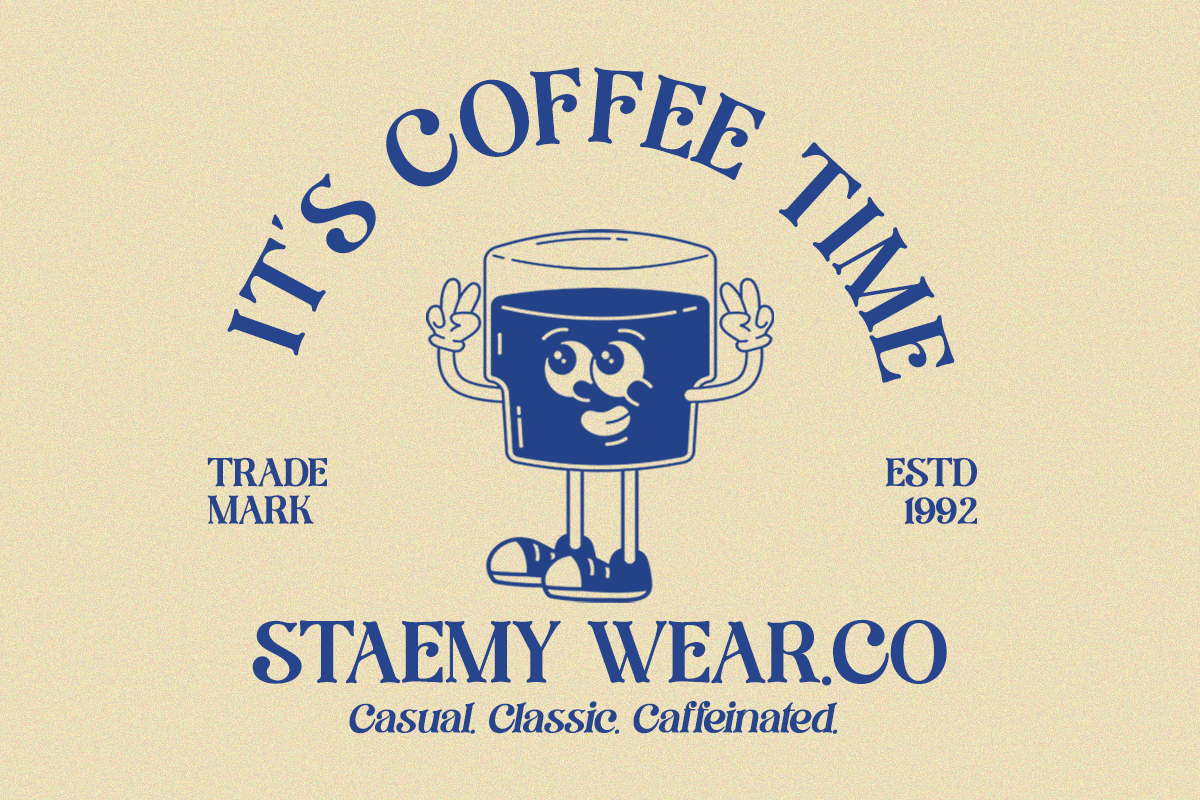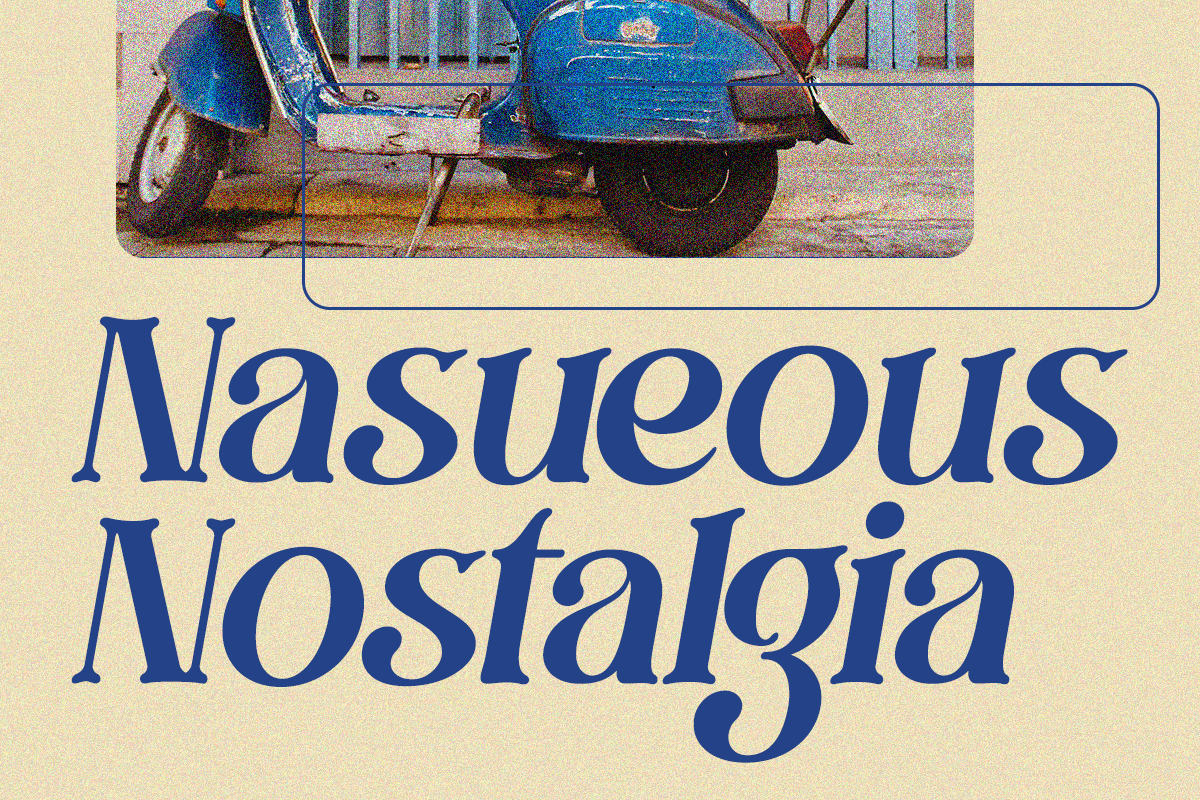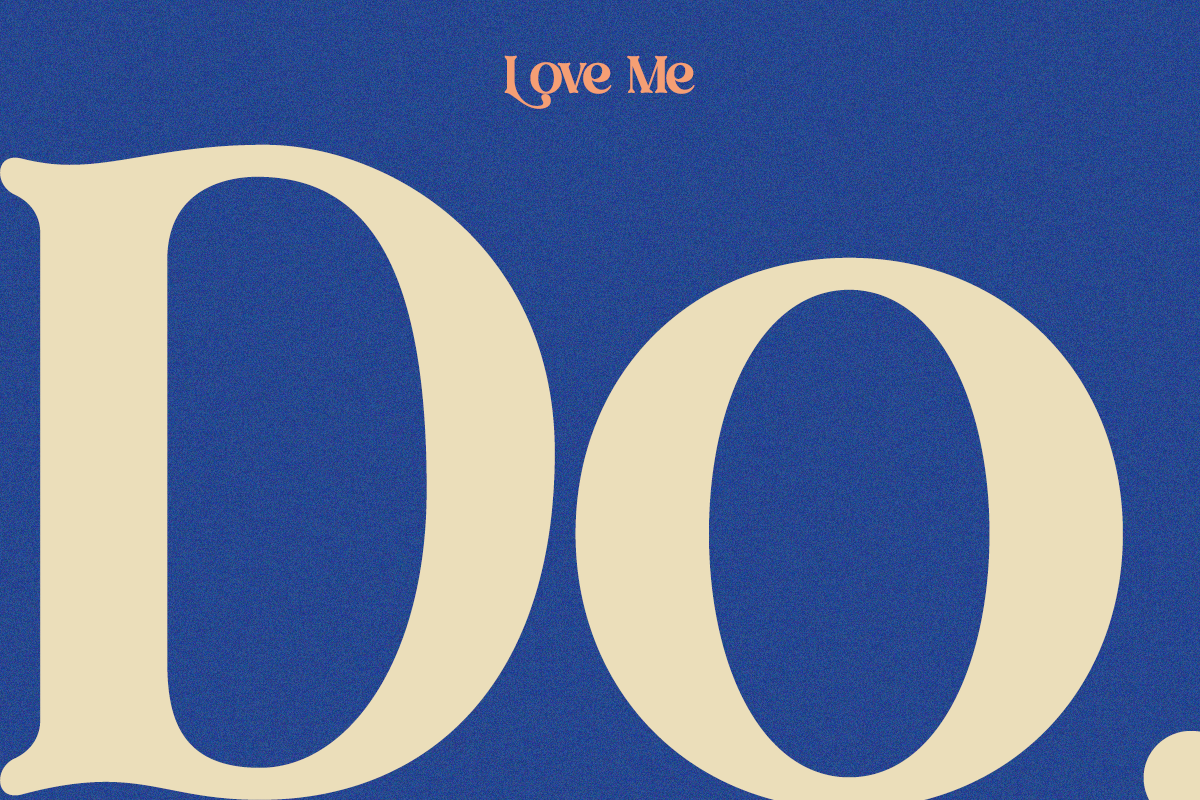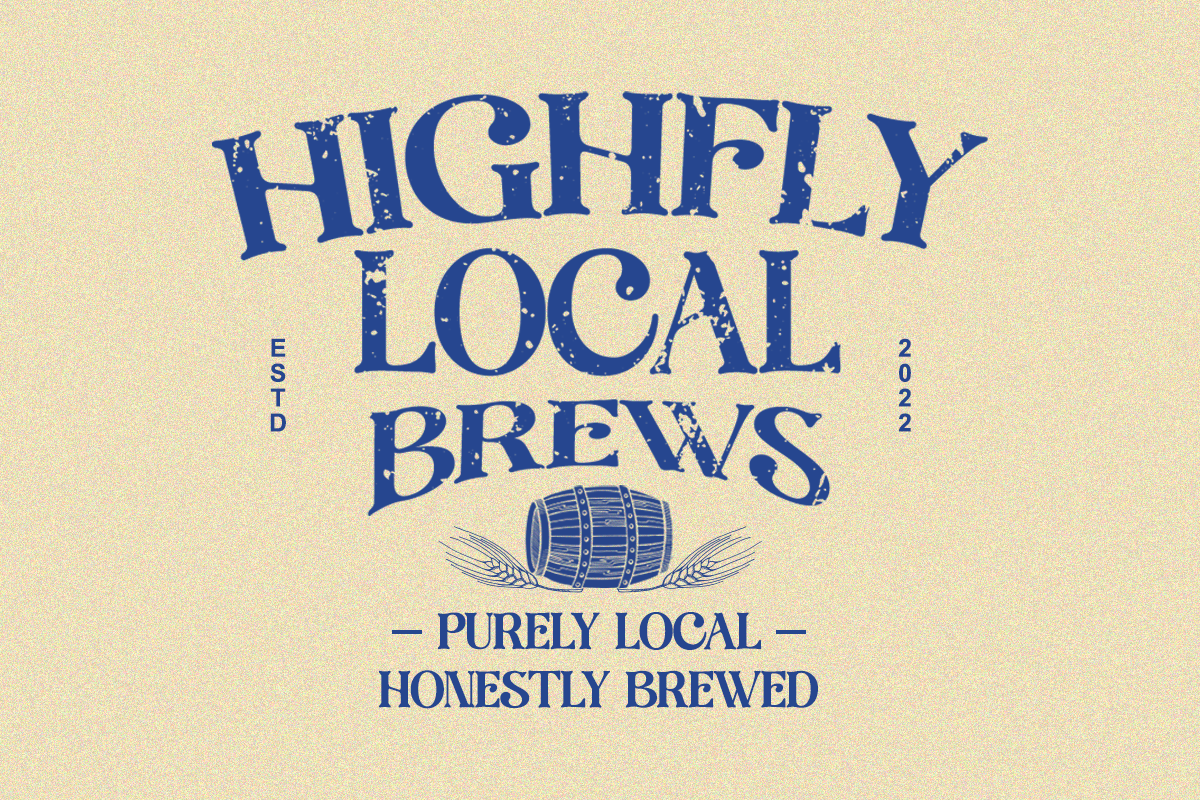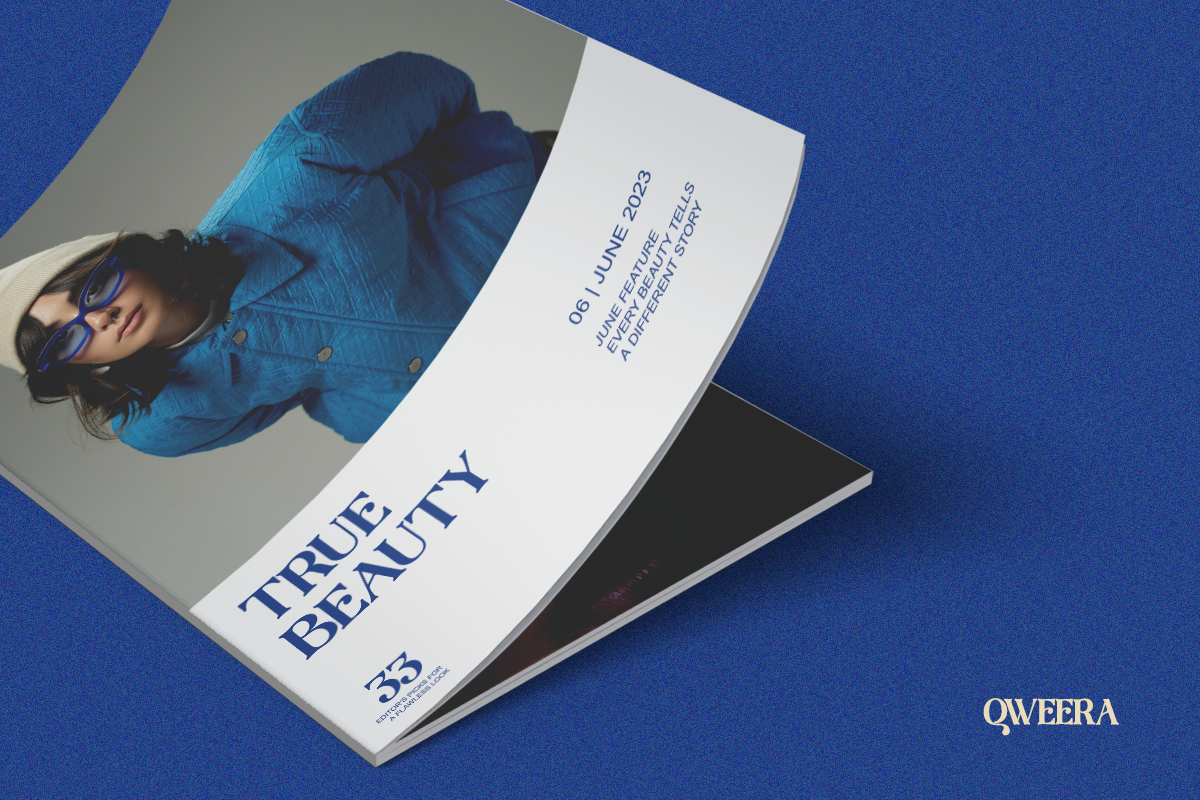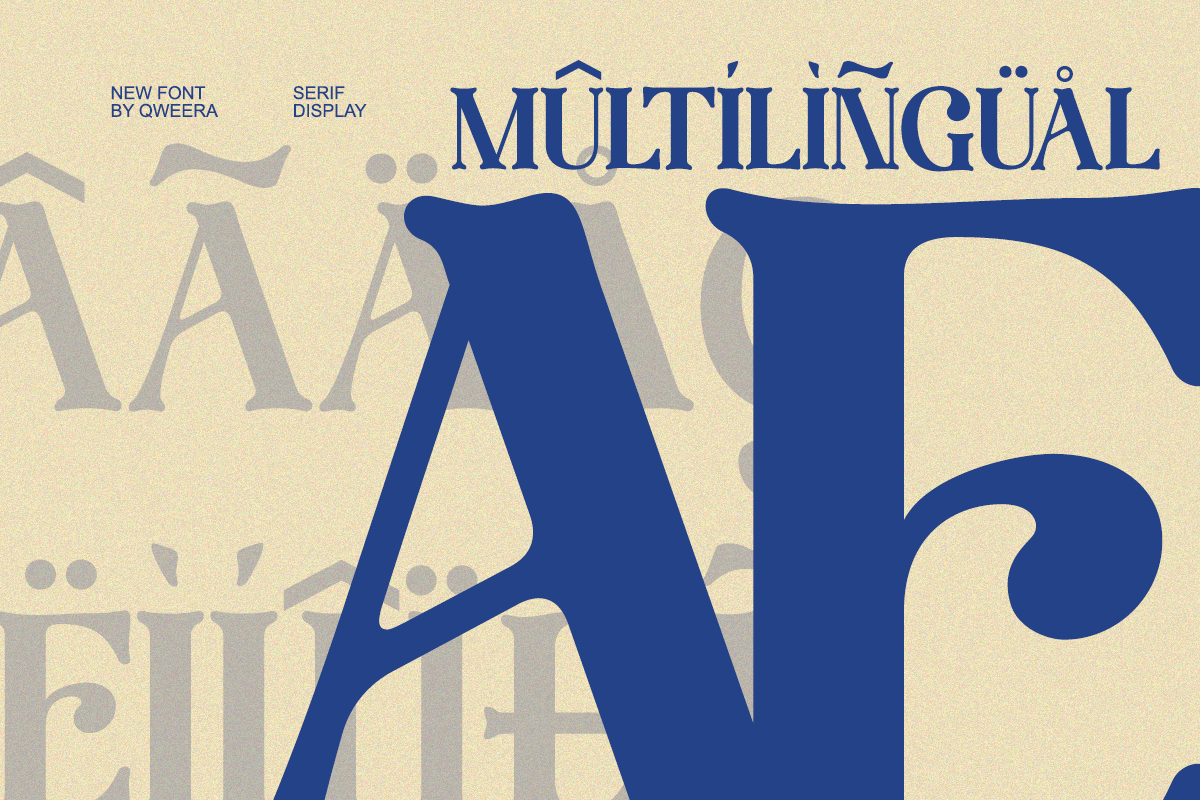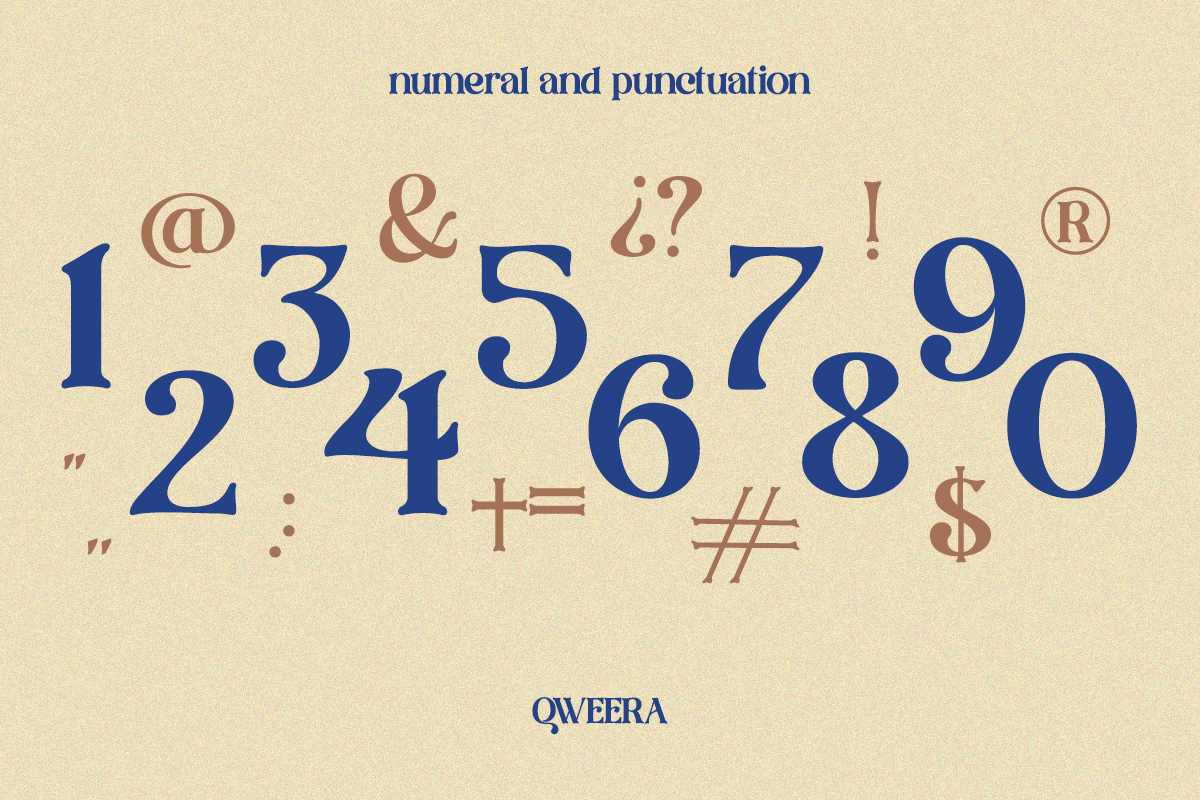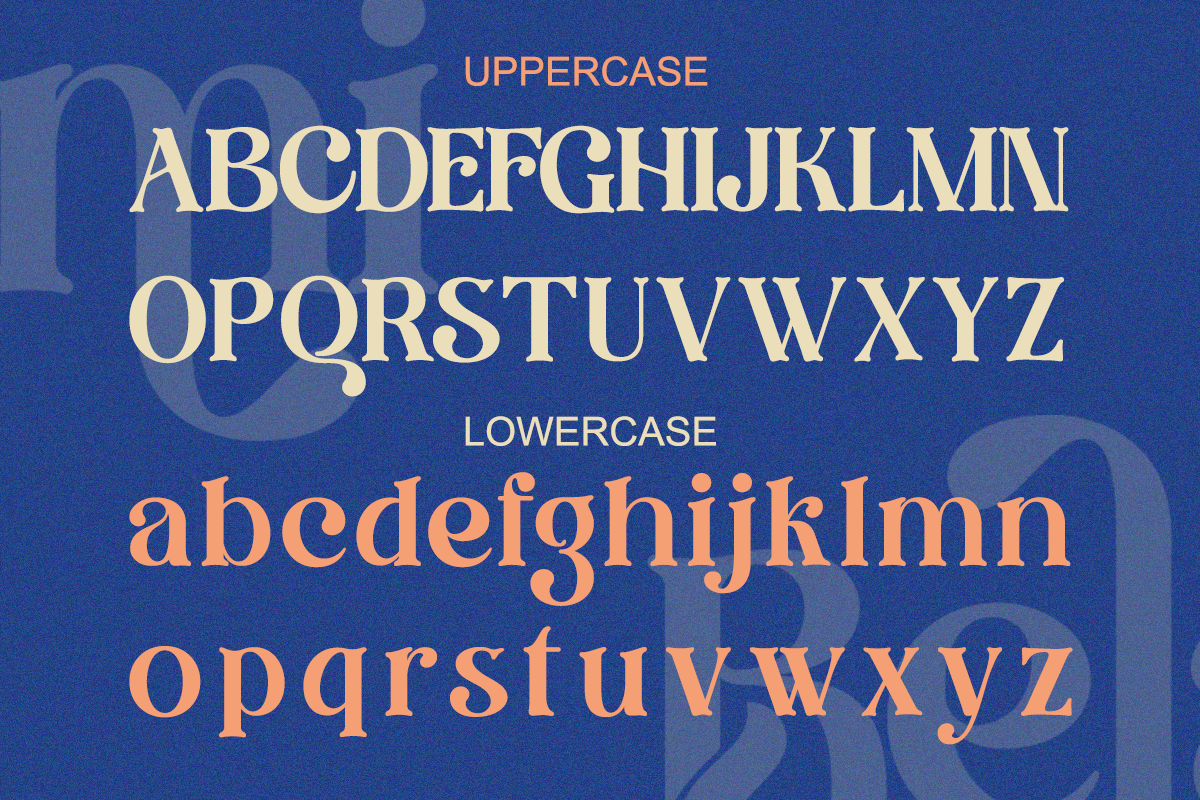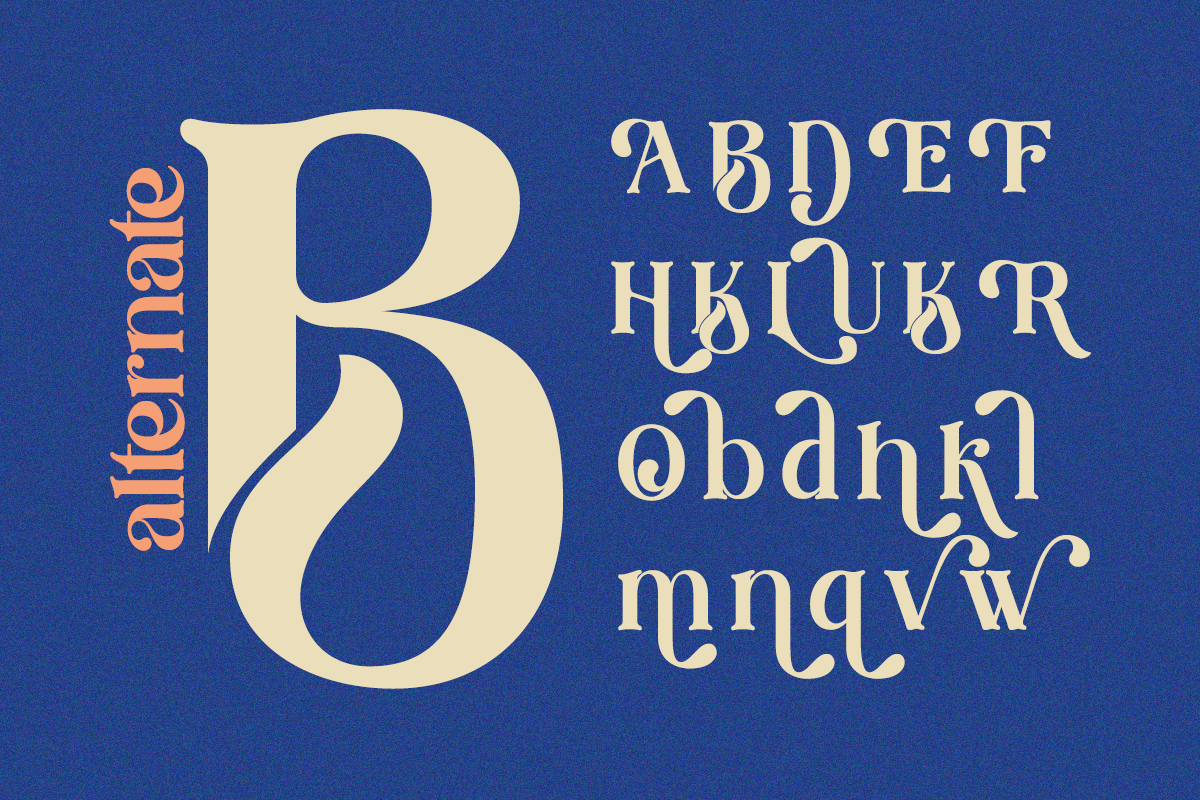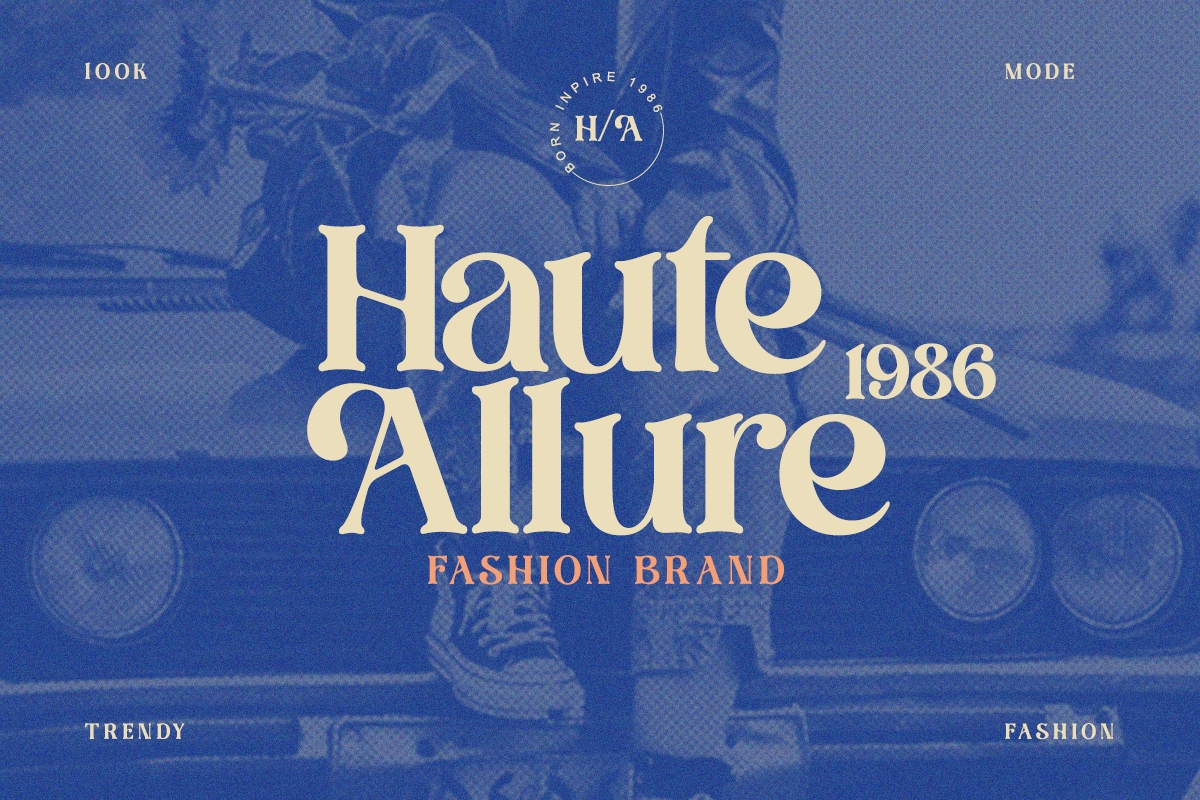
Belami - Modern Retro Stylish Serif
Belami is a retro-modern serif font designed to bring both personality and sophistication to your designs. Its confident curves and stylish proportions make it ideal for logos, packaging, posters, and editorial layouts. With a vintage soul and a modern body, Belami delivers timeless beauty and bold creative energy in one elegant typeface.
- Regular & Italic
Perfect For: Branding, product packaging, magazine design, and artistic logos.